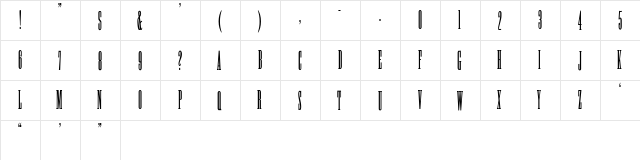
WoodtypeAntiqueXXXCond Medium
Design Context for WoodtypeAntiqueXXXCond Typeface
WoodtypeAntiqueXXXCond echoes the hand-painted signage and woodblock typography of the American frontier, with a warm, rugged personality.
A natural fit for craft spirits, ranch branding, rodeo events, and Americana-inspired design work.
Font Pairing: Combine WoodtypeAntiqueXXXCond with a simple slab or neutral sans — period-accurate companions reinforce the vintage feel without competing for attention.
Pro Tip: Use WoodtypeAntiqueXXXCond for short, impactful bursts of text — it shines in poster headlines and product names rather than extended copy.